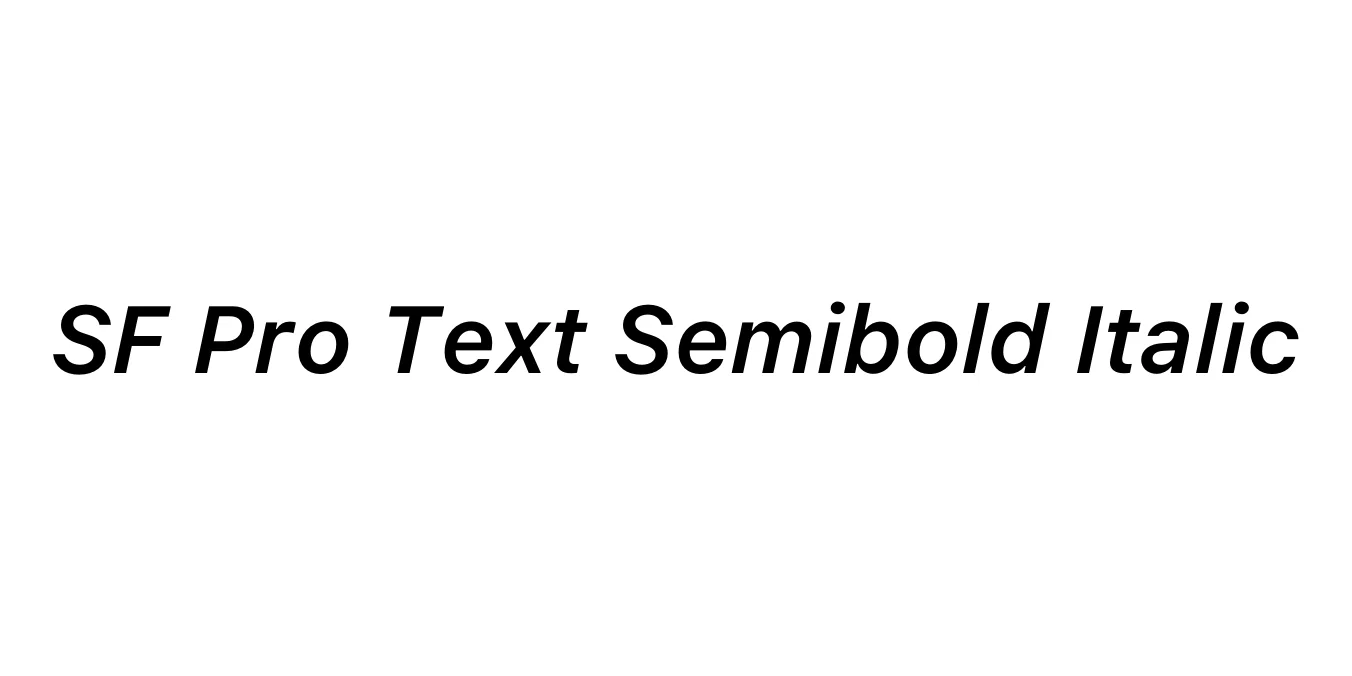
SF Pro Text Semibold Italic
Designed by Apple Inc.
SF Pro Text Semibold Italic is a pivotal component of Apple's San Francisco typeface family, specifically engineered to provide optimum legibility and clarity on digital screens. As part of the 'Text' optical size, this font is meticulously adjusted with slightly wider letter spacing and larger apertures, making it exceptionally readable at smaller point sizes. The Semibold weight provides a distinct visual hierarchy, while the italicized slant adds a sophisticated dynamic touch to user interfaces and editorial content.
Introduced to unify the visual language across iOS, macOS, and watchOS, SF Pro has become synonymous with modern minimalist design. The Semibold Italic variant is frequently utilized for emphasizing key functional elements, such as navigation headers, active states, and specific call-to-action text. Its neutral yet friendly appearance allows it to adapt to various design contexts, maintaining a professional aesthetic while ensuring that the content remains the primary focus for the user.
SF Pro Text Semibold Italic Best Uses
Perfect for navigation bars and highlighted interface elements in mobile applications.
Great for pull quotes and providing emphasis within professional documentation.
Ideal for creating a native Apple-like experience on websites and dashboards.
Suitable for corporate identity materials that require a clean, technological feel.